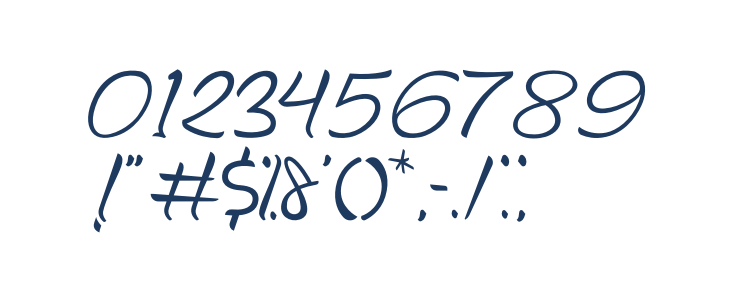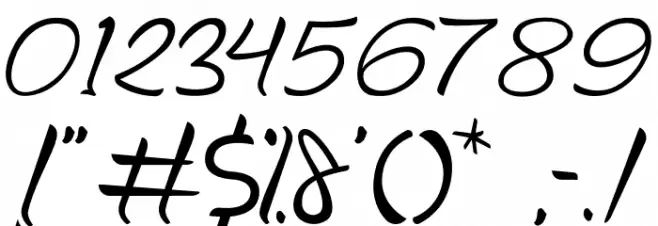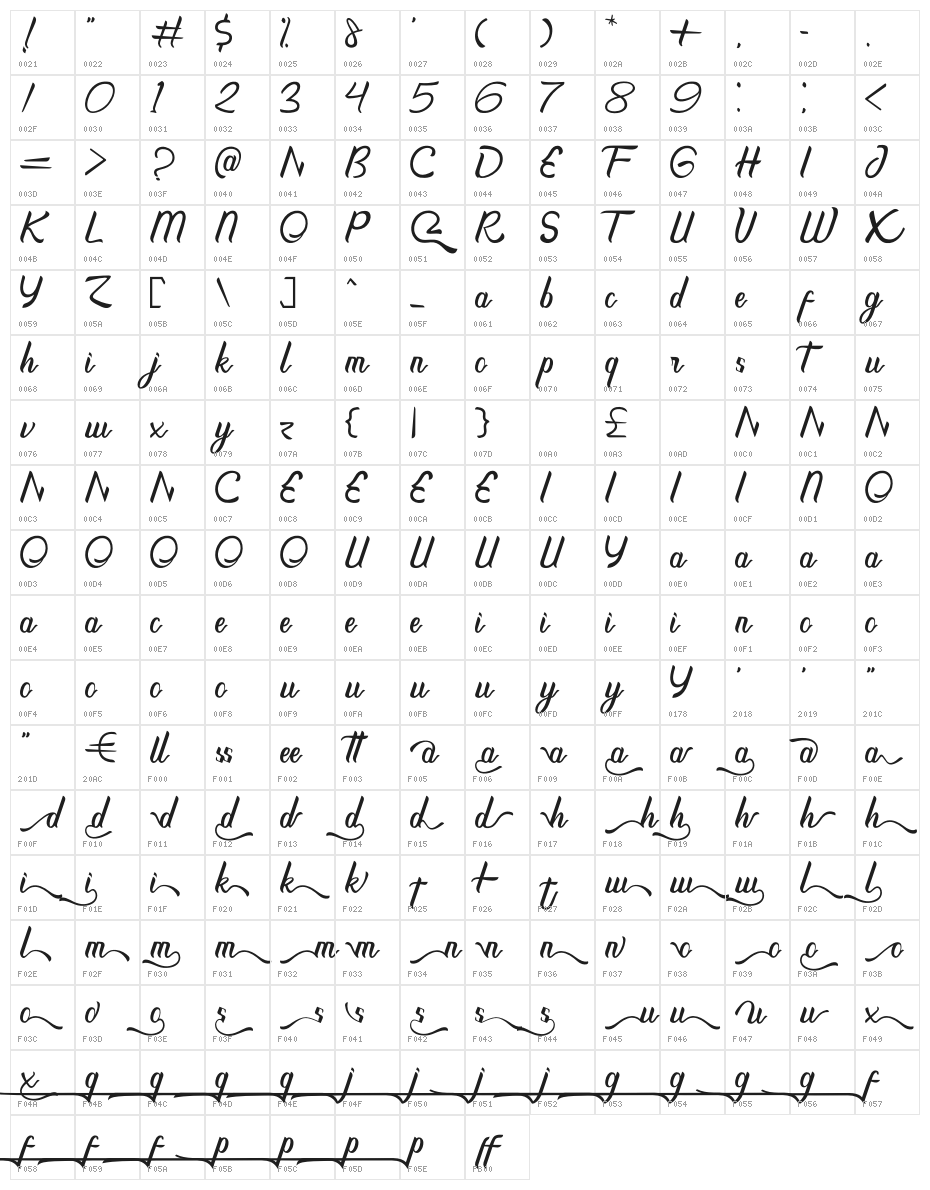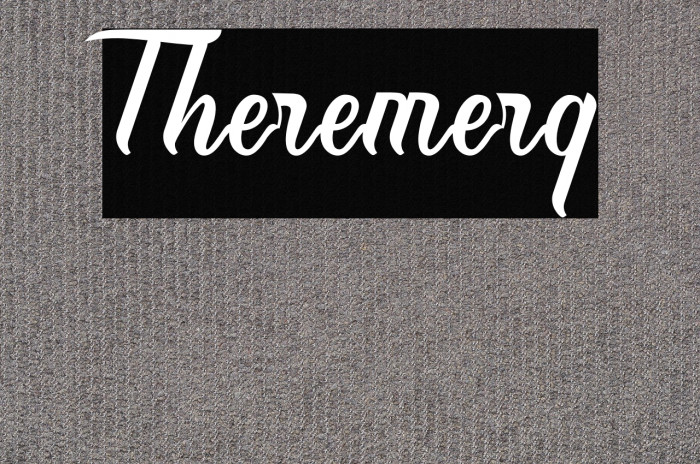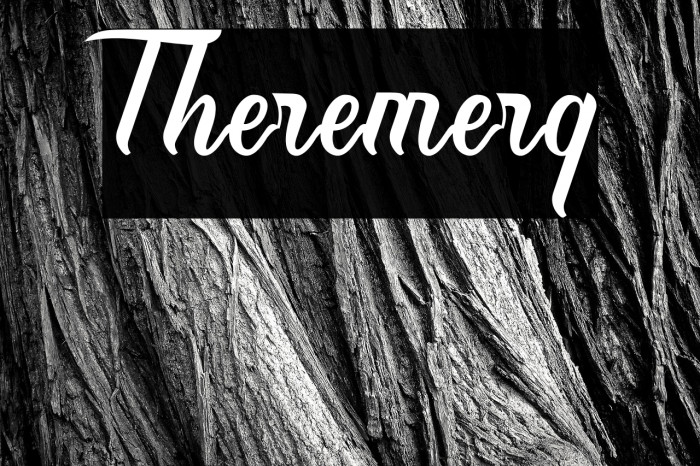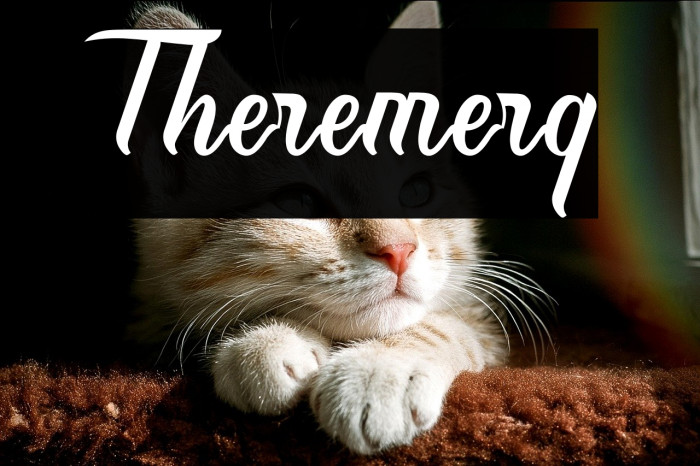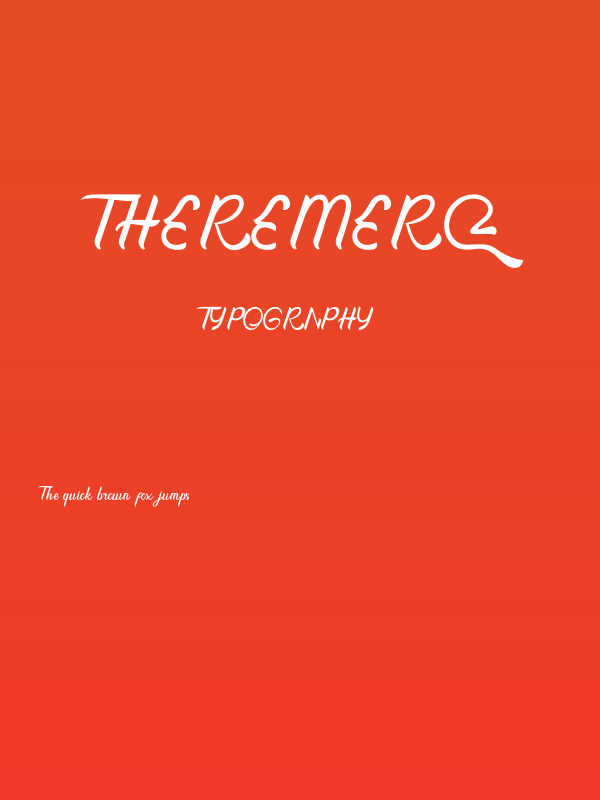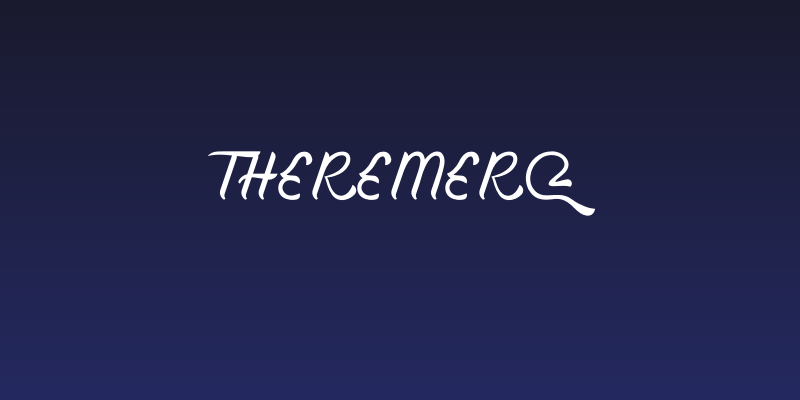
Theremerq Font
Theremerq Description
This font features a dynamic and flowing script style, characterized by its elegant and fluid letterforms. The uppercase letters exhibit a graceful, slightly slanted appearance, while the lowercase letters maintain a consistent cursive flow. The numerals are designed with a similar flair, ensuring uniformity across all characters. Special characters are crafted with the same attention to detail, adding to the font's cohesive aesthetic. The overall design exudes a sense of sophistication and creativity, making it suitable for a variety of artistic applications.